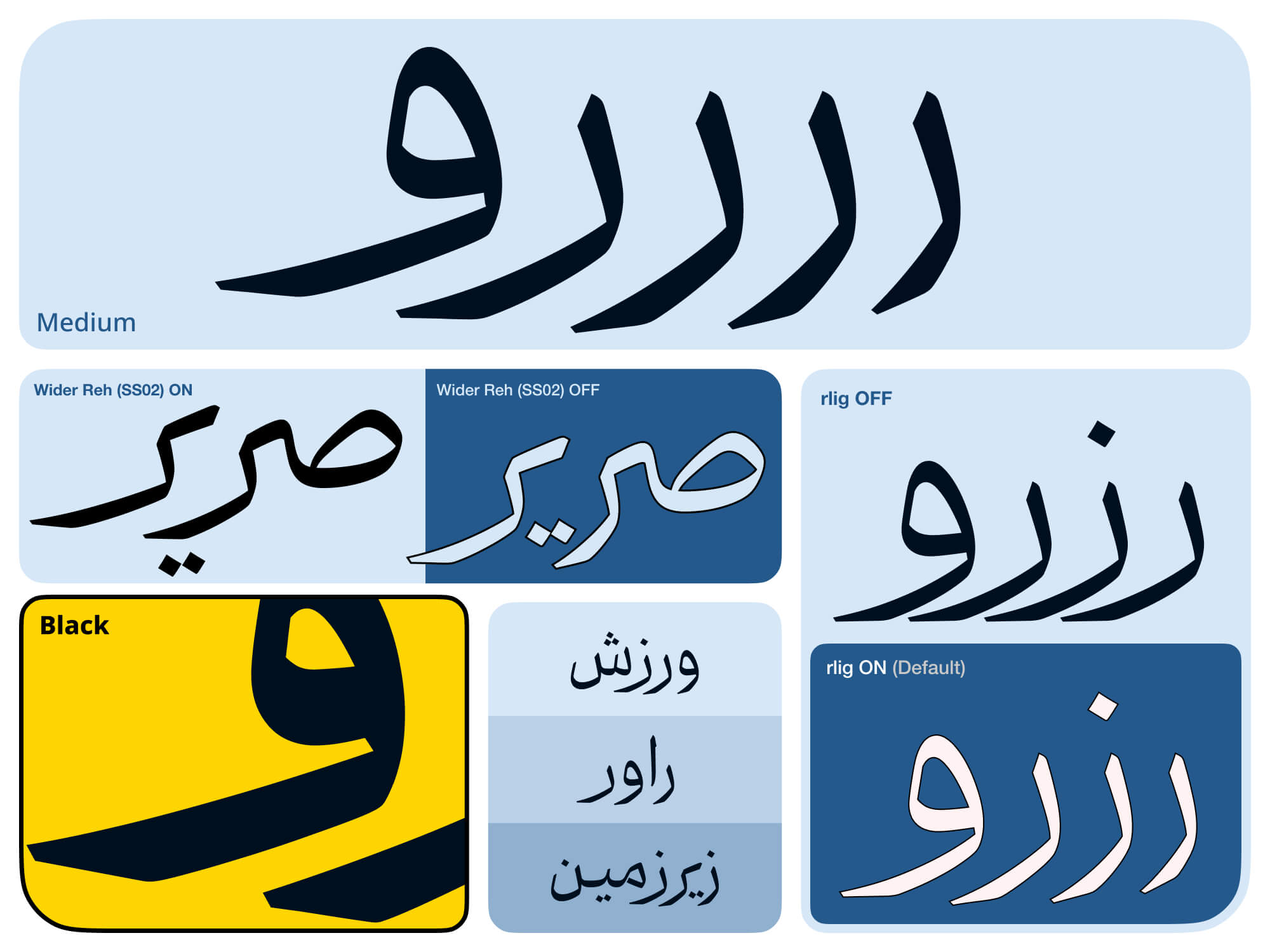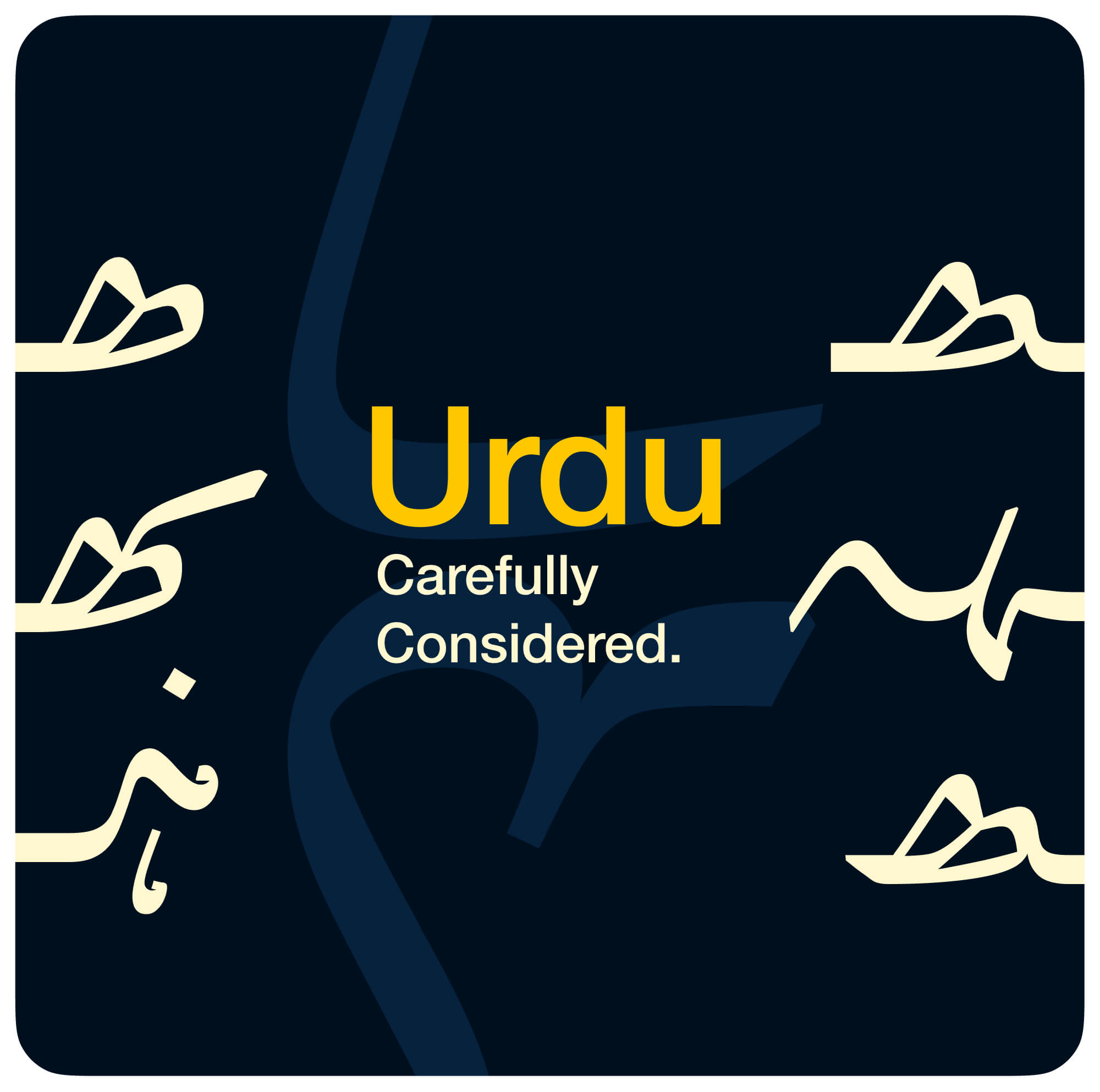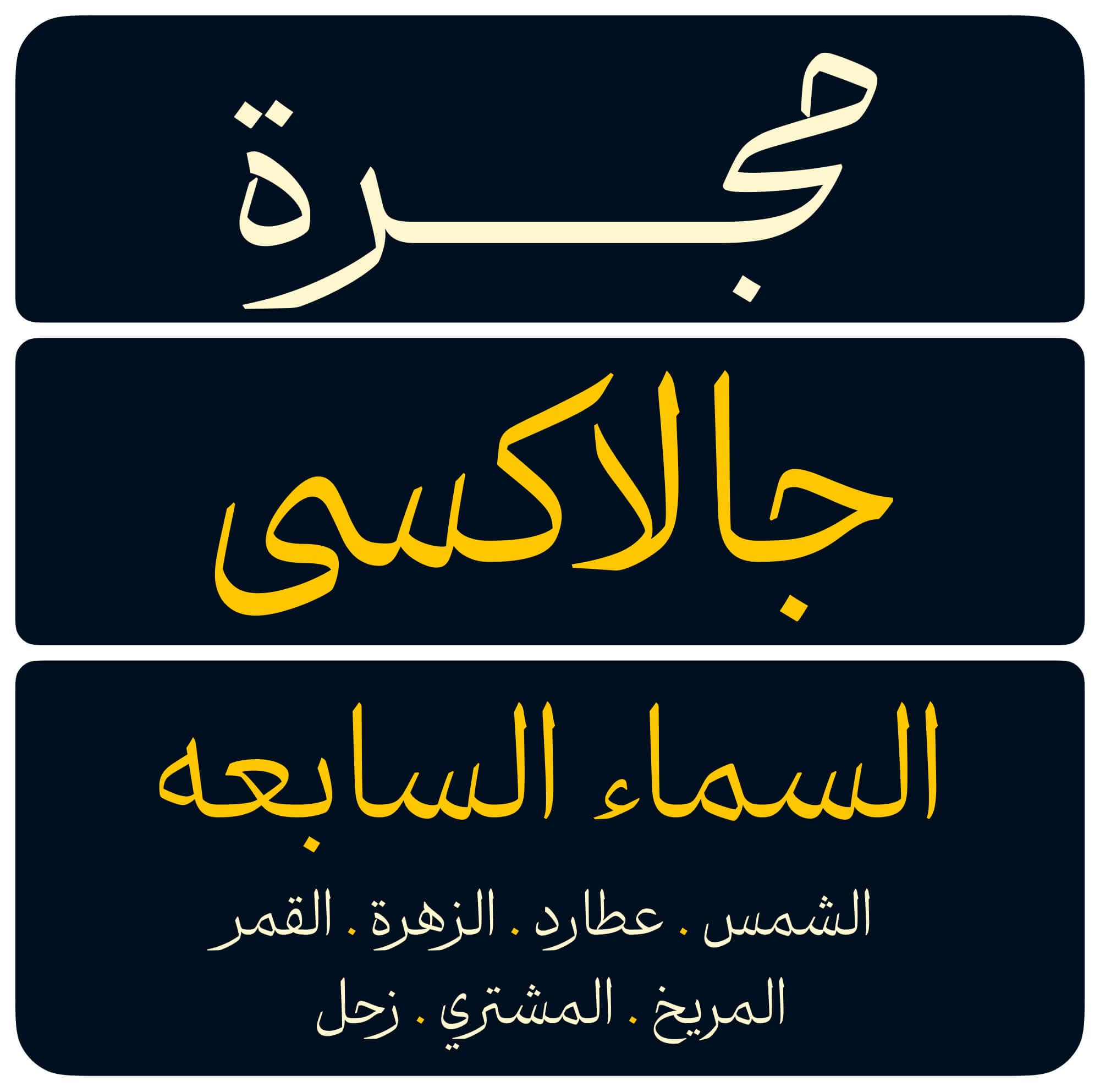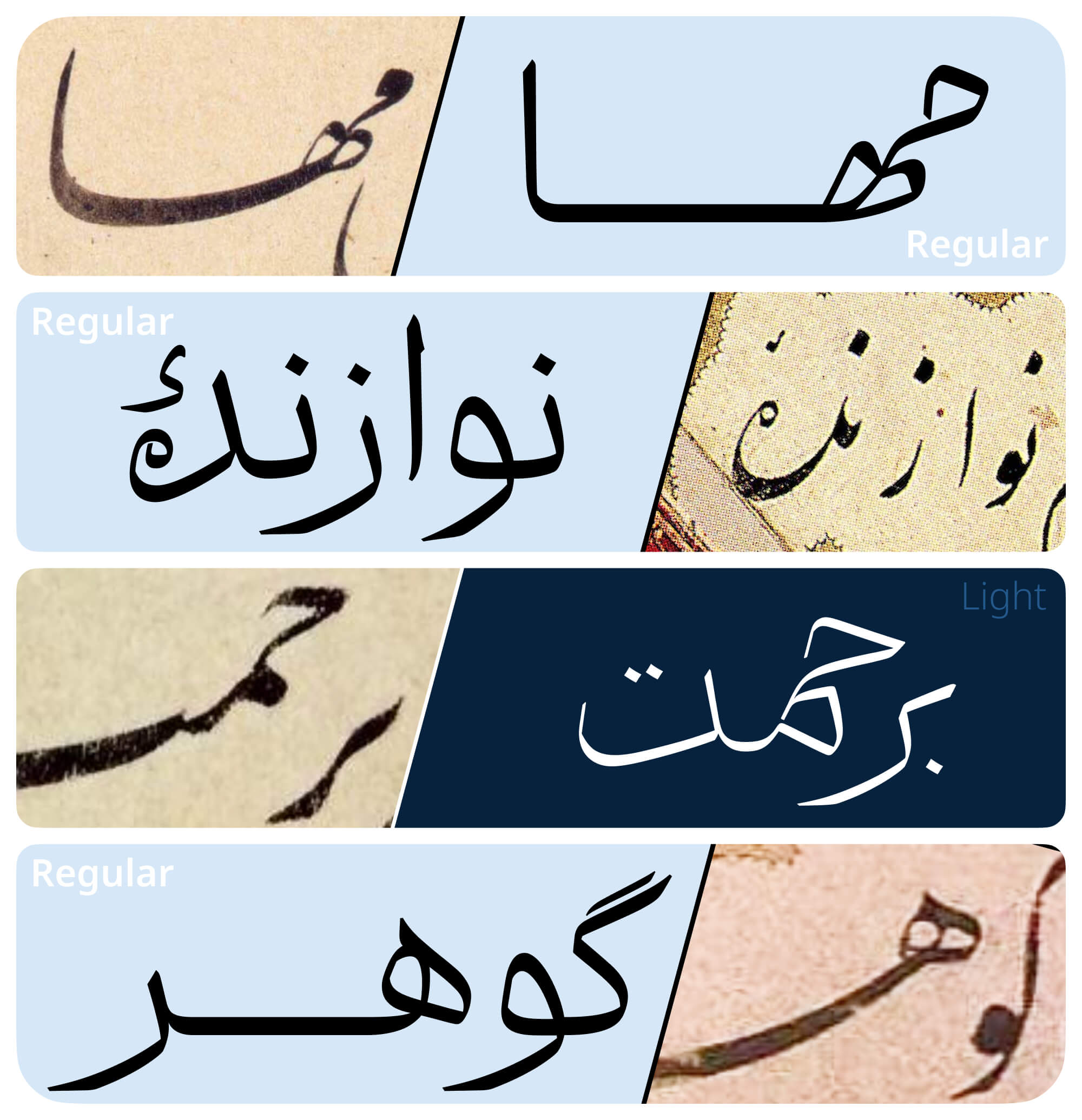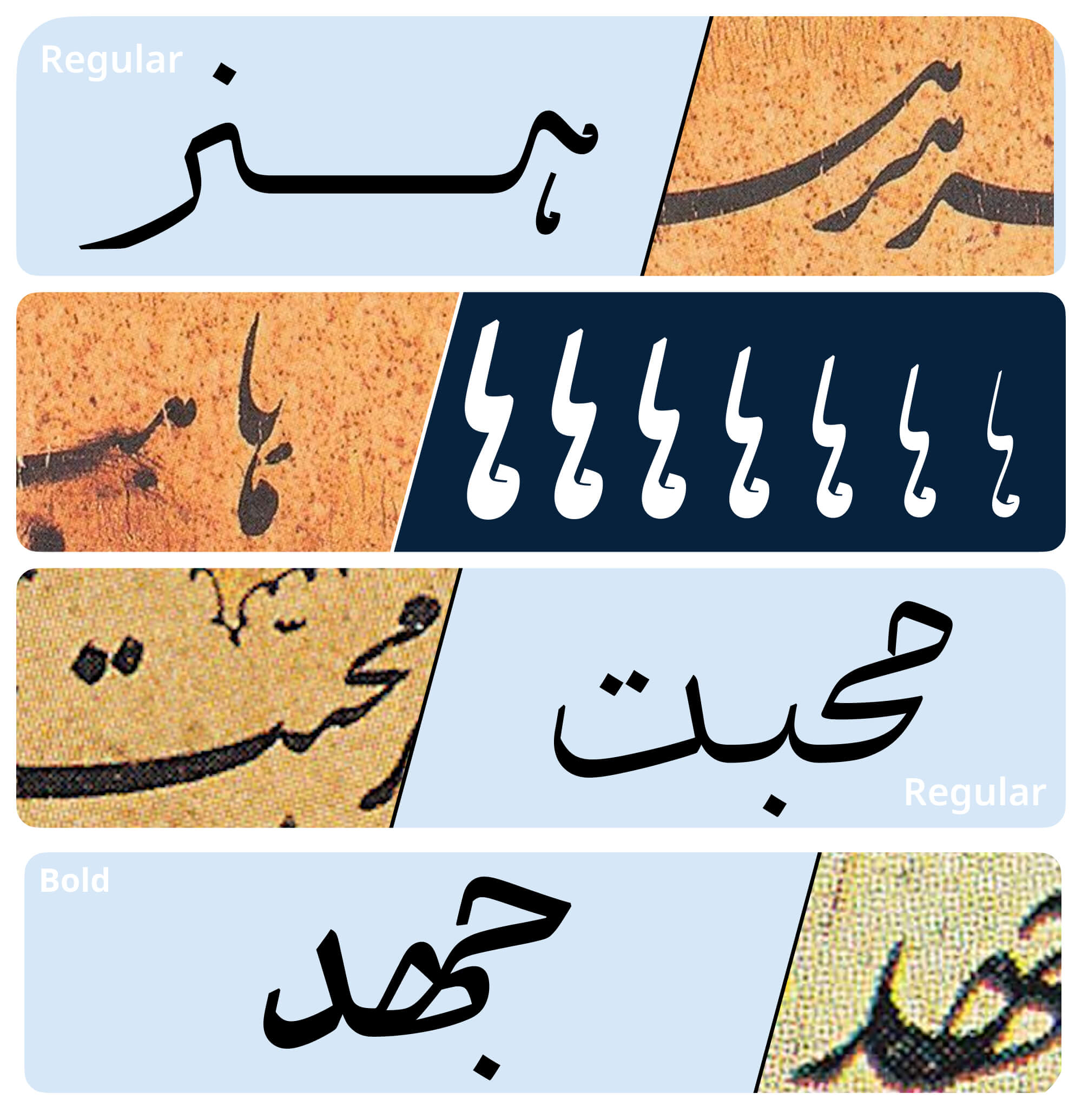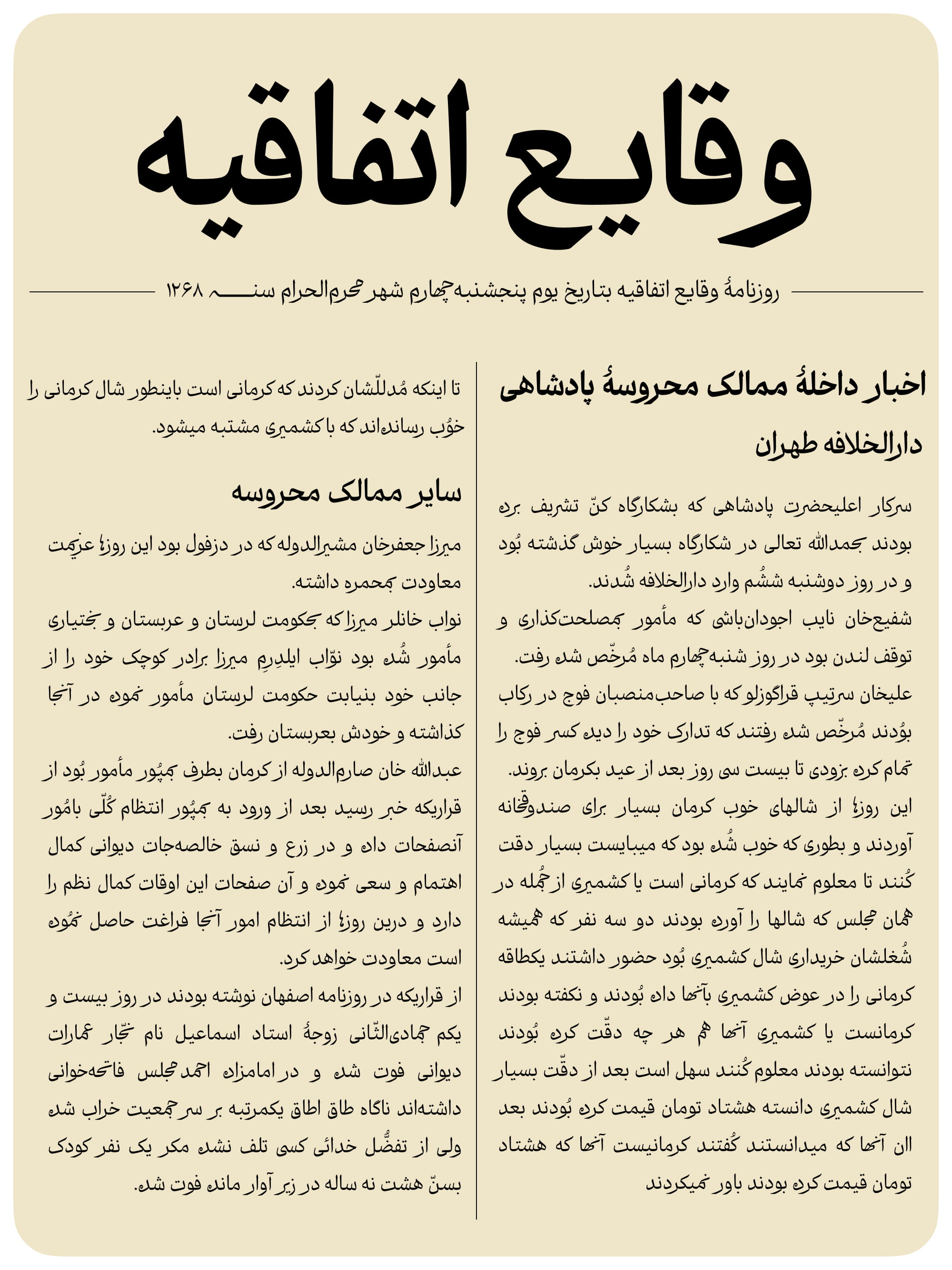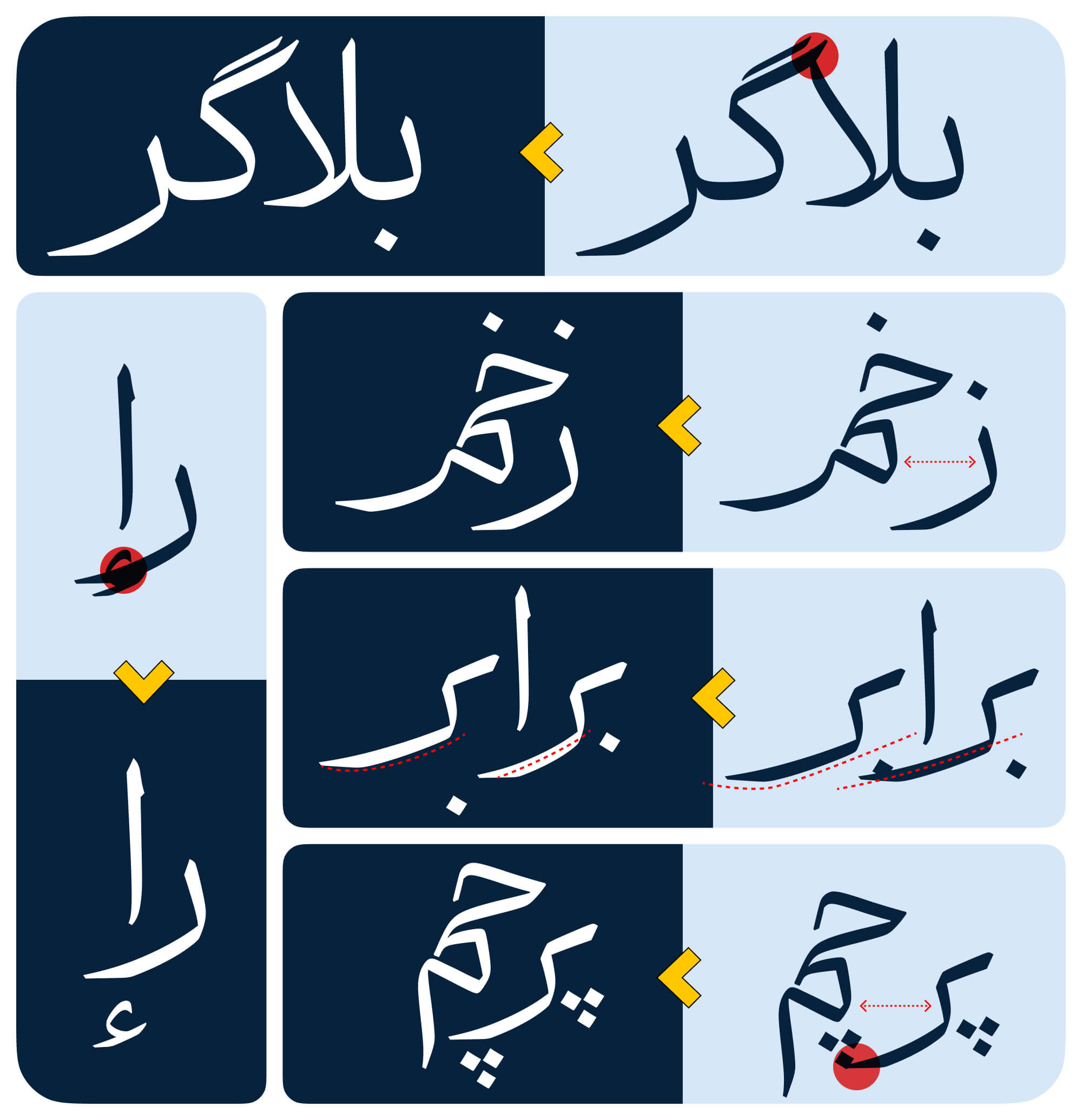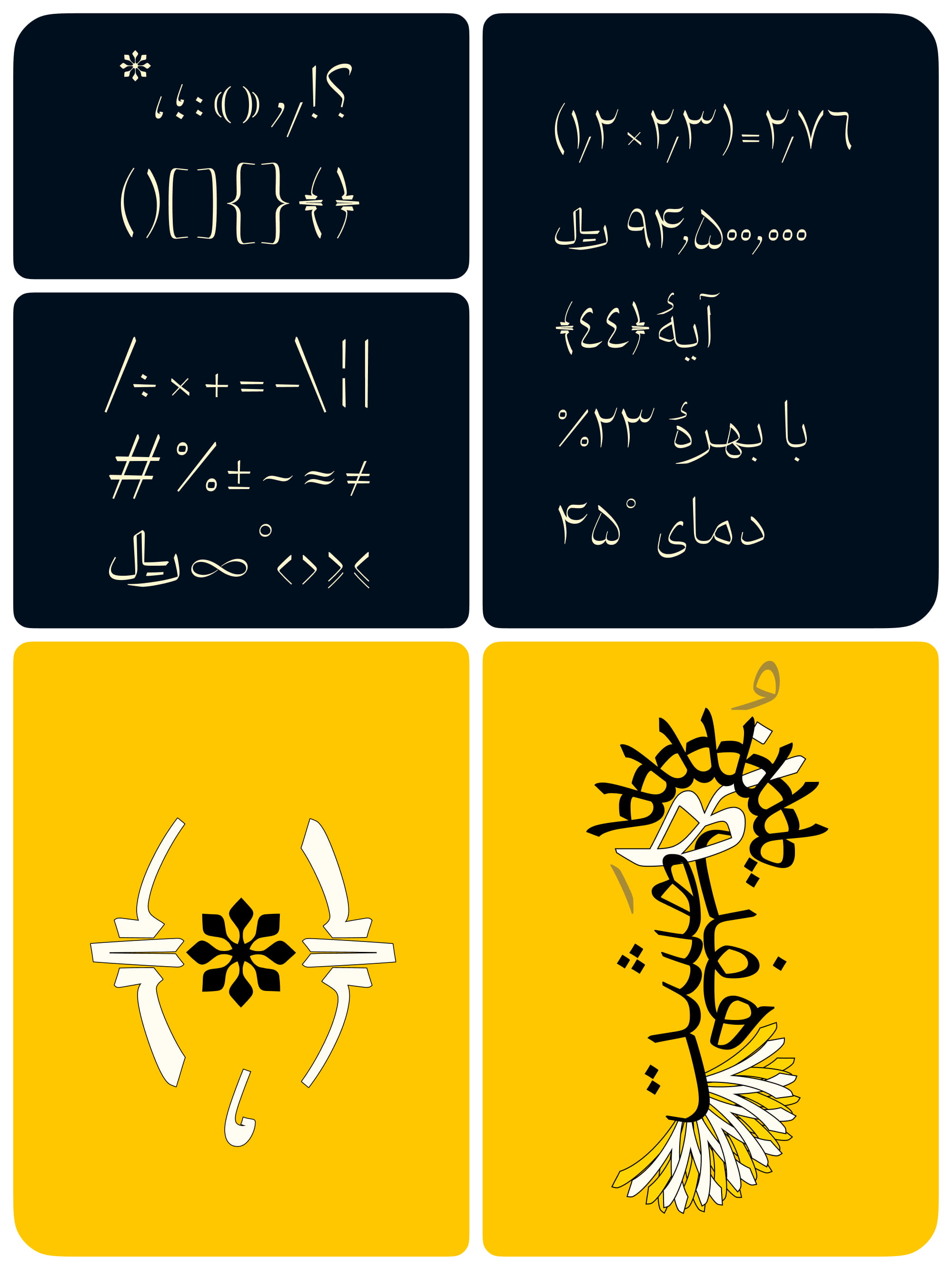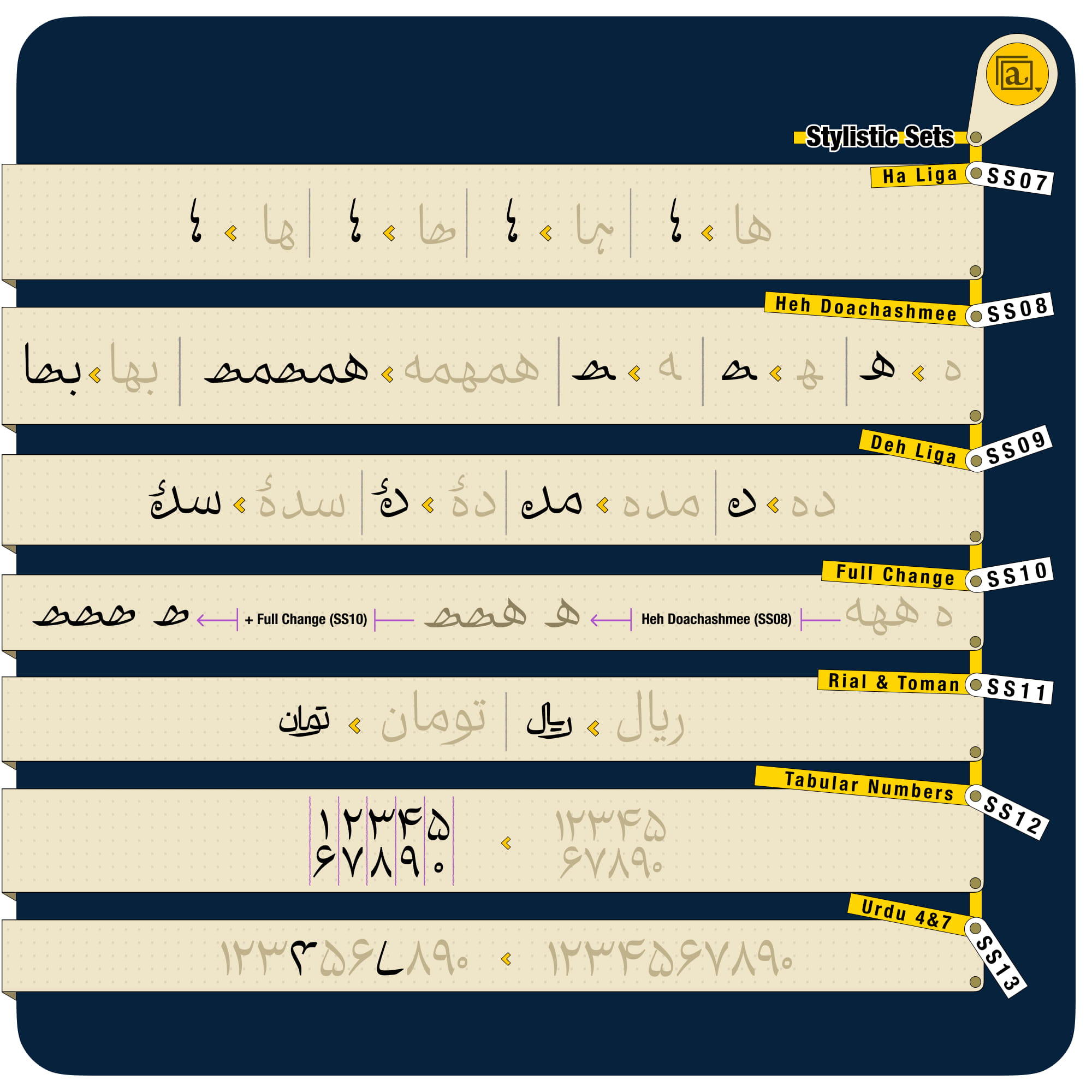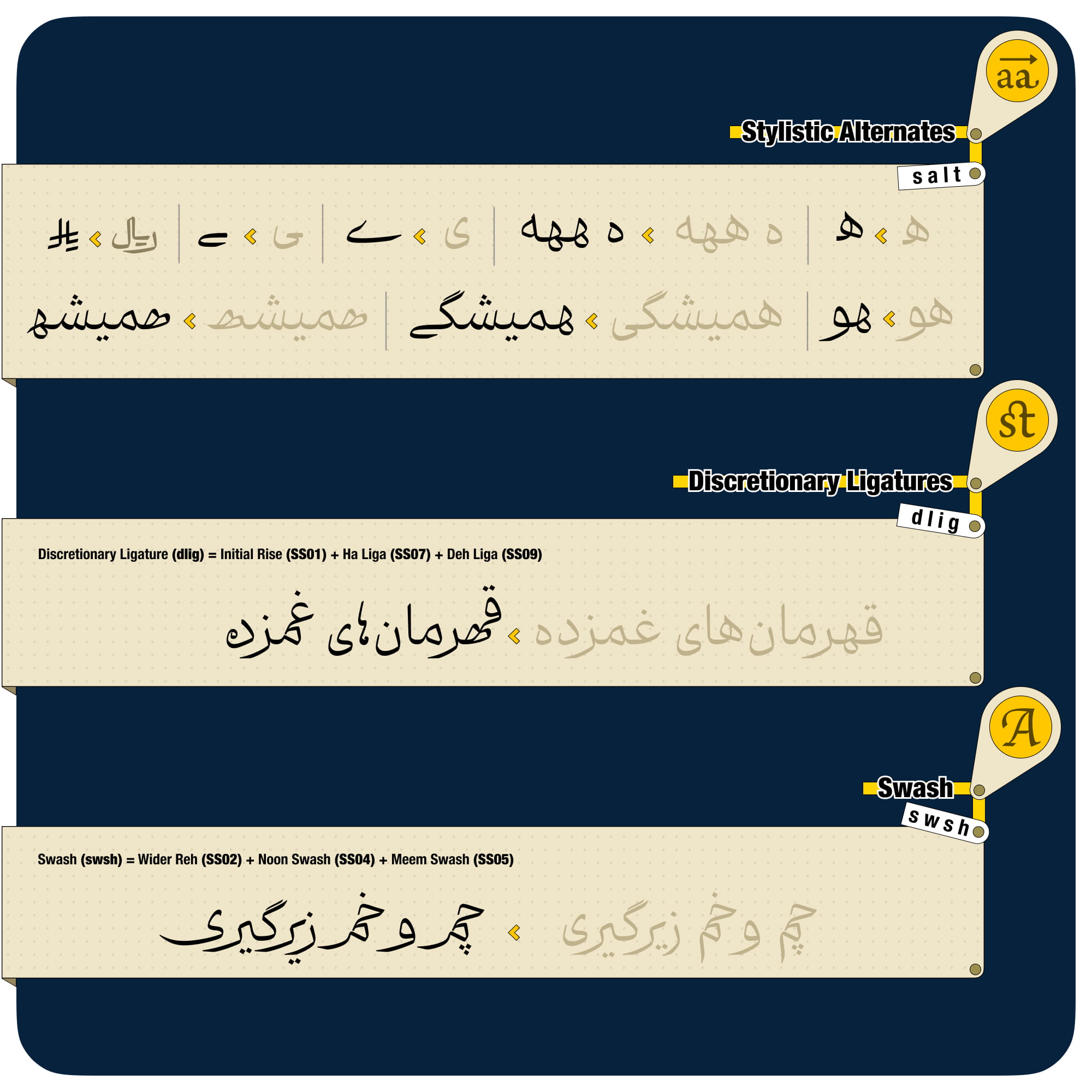
Nouzdah
Throughout the design and development of Nouzdah, readability in long-form text and at small sizes remained a central consideration. Its intricate details are an essential part of its character, but they are never intended to overshadow the fundamental purpose of a text typeface. The extensive range of combinations and stylistic possibilities has been developed with the same principle in mind: that visual richness should remain in service of the text.
Nouzdah is designed to move comfortably between different scales and contexts. It can bring presence and distinction to headlines and short texts, while remaining capable of handling the demands of long-form editorial and book typography. In digital environments, it offers a classic yet confident choice for websites and applications.
Its rich collection of stylistic alternates and contextual forms also opens another avenue of expression, allowing designers to draw upon them in creating logotypes with a distinctive and individual visual charact.
In scripts such as Muhaqqaq, the long tails of Reh and Waw are distinctive structural features, and their parallel alignment plays an important role in maintaining the rhythm and flow of writing.
In Nouzdah, this characteristic is preserved through five different forms and sizes for the tails of Reh and Waw, carefully designed to maintain their parallel relationship while controlling the vertical extension of the letters, preserving the visual balance, rhythm, and readability of the text.
One of the distinctive forms of "Heh" in Nastaliq is the "Heart-shaped Heh", a unique and elegant form that has rarely been adapted to modern non-Nastaliq typefaces. As far as we have seen in known examples, Nouzdah is among the first typefaces to reinterpret this form within a non-Nastaliq structure and adapt it to its own visual language; an approach also applied to the "Comma-shaped Heh".
Achieving this formal harmony was one of the challenges in the design of Nouzdah.
The significance of "Heart-shaped Heh" and "Comma-shaped Heh" becomes even more apparent in Urdu writing, where the distinction between these two forms ("Heh Goal" and "Heh Doachashmee") plays a specific role in the writing system.